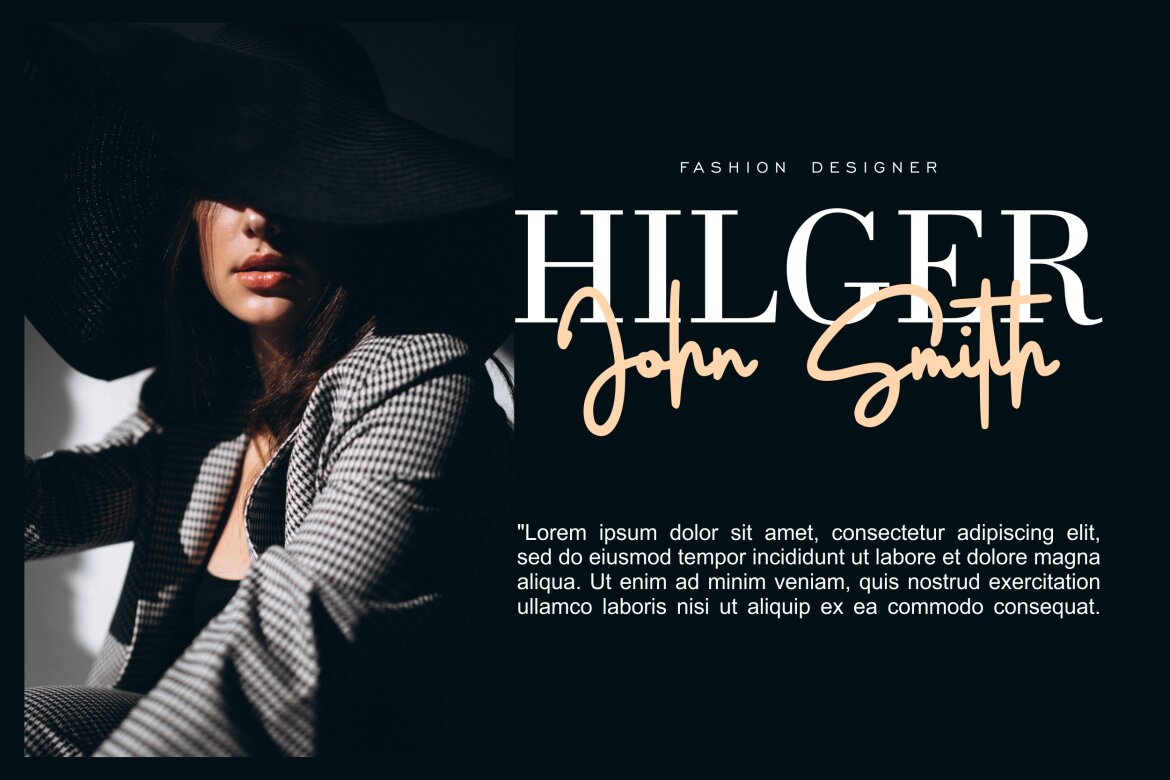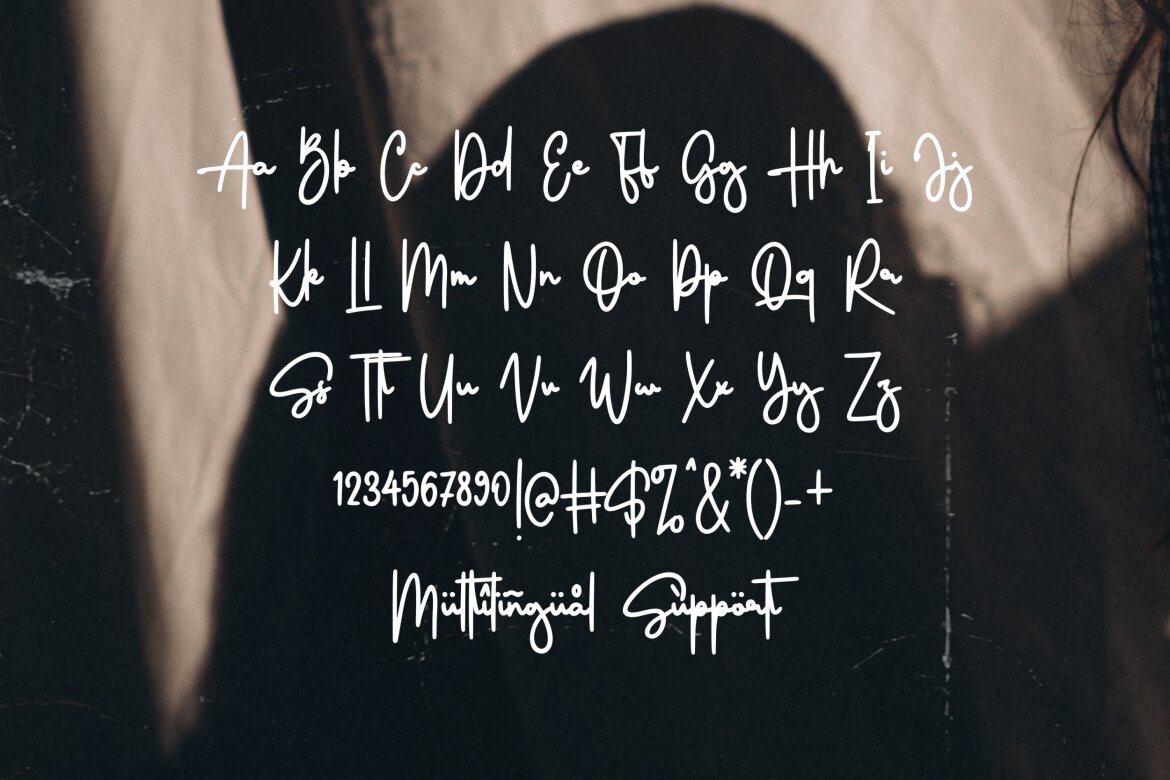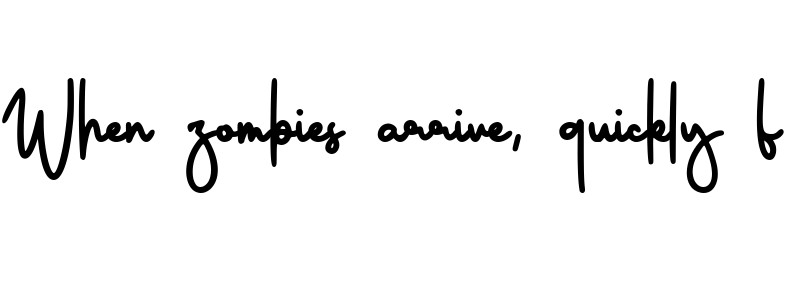
Allwish Honest FREE Font
Allwish Honest
Experience the elegance of Allwish Honest, the epitome of luxury in the world of signature fonts. This distinctive typeface boasts a chic and refined finish, ideal for enhancing brand imagery, product packaging, and impeccably curated magazine layouts. Extend its style to social media and lend your posts an inimitable grace, or add a flourish to your wedding invitations for an extra touch of sophistication, enabling you to effortlessly unlock the full artistic potential of Allwish Honest. Discover a world of style and refinement, all encapsulated within this exquisite font.